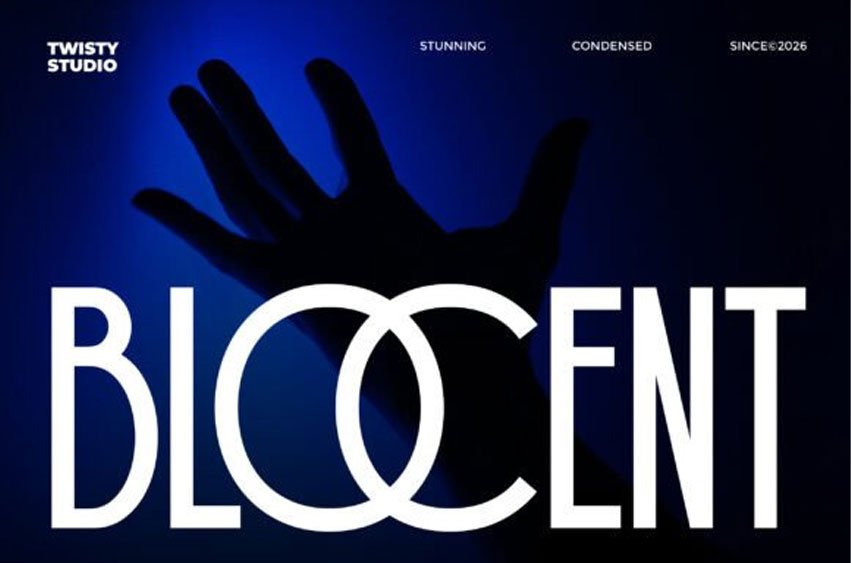
Blocent Font is a condensed modern sans serif font designed to deliver a clean, bold, and visually striking typographic style.
With its tall letterforms, sharp lines, and balanced structure, Blocent creates a strong and contemporary appearance that stands out in any design.